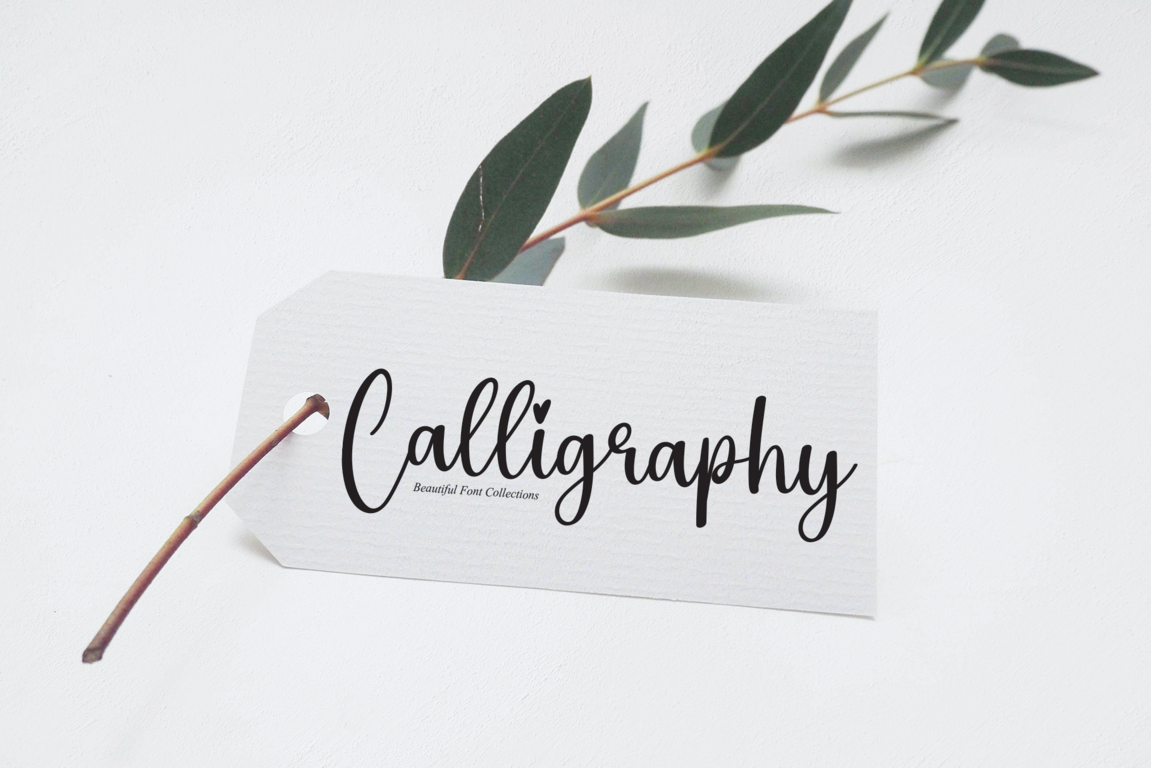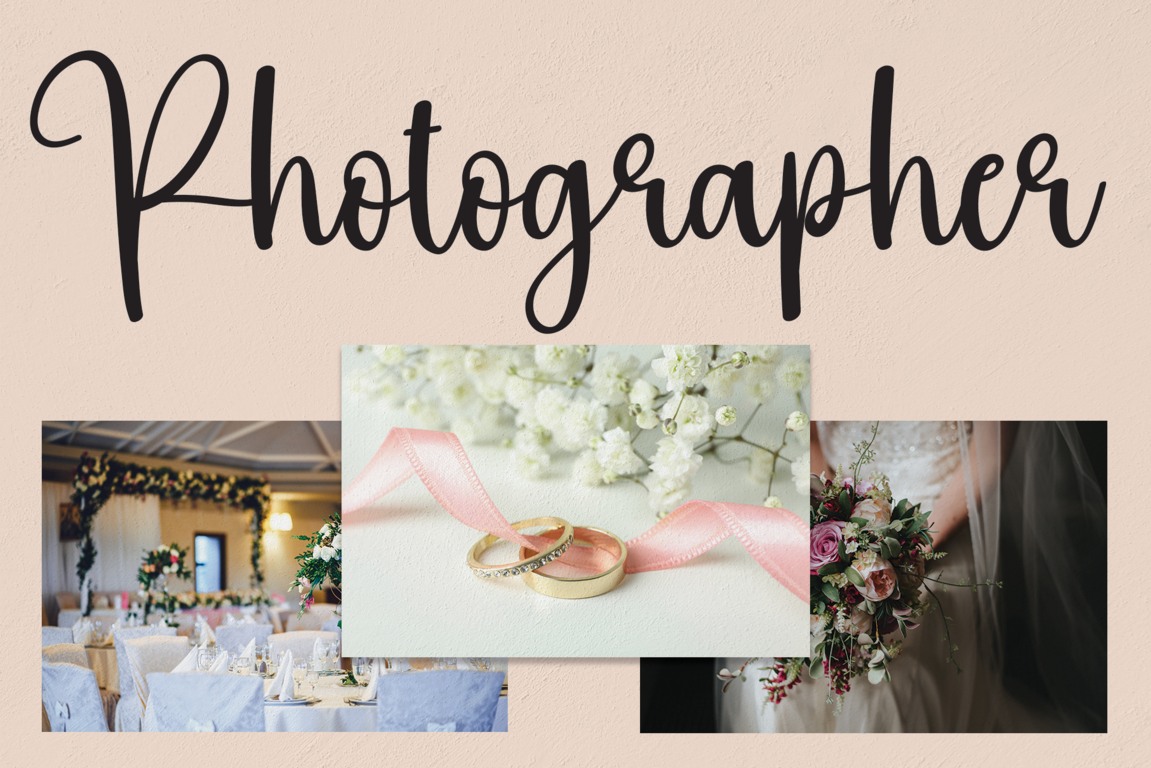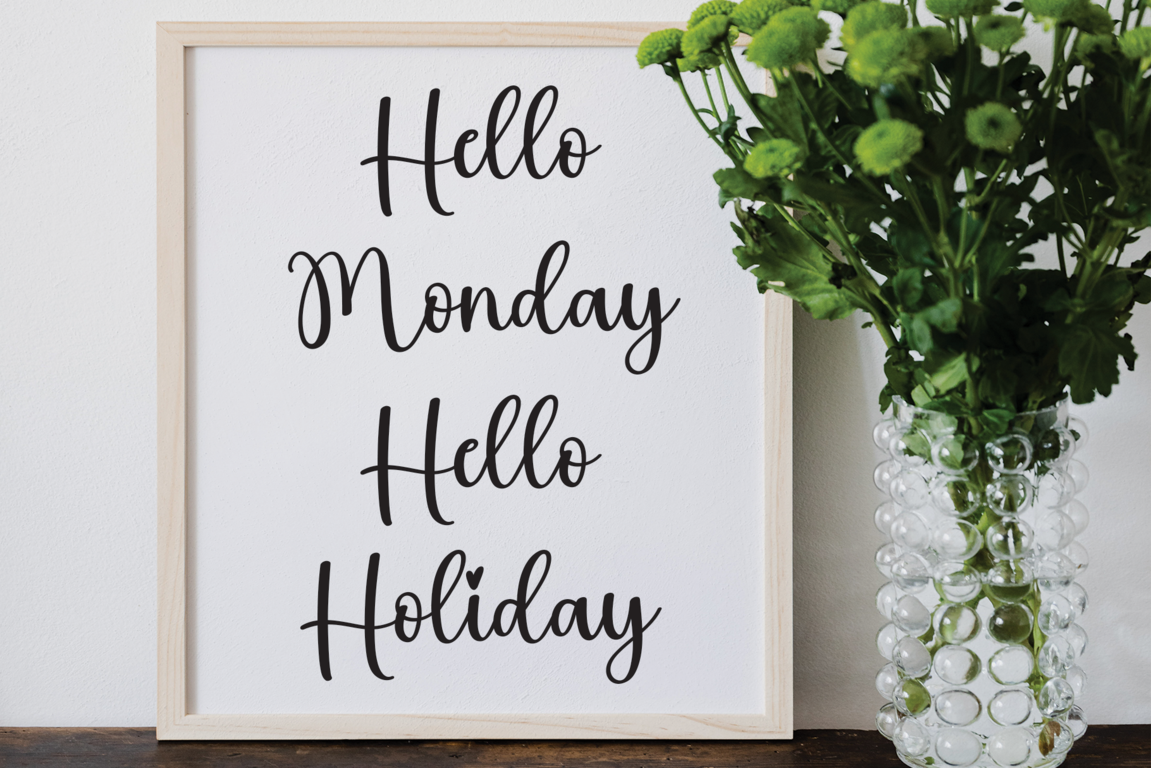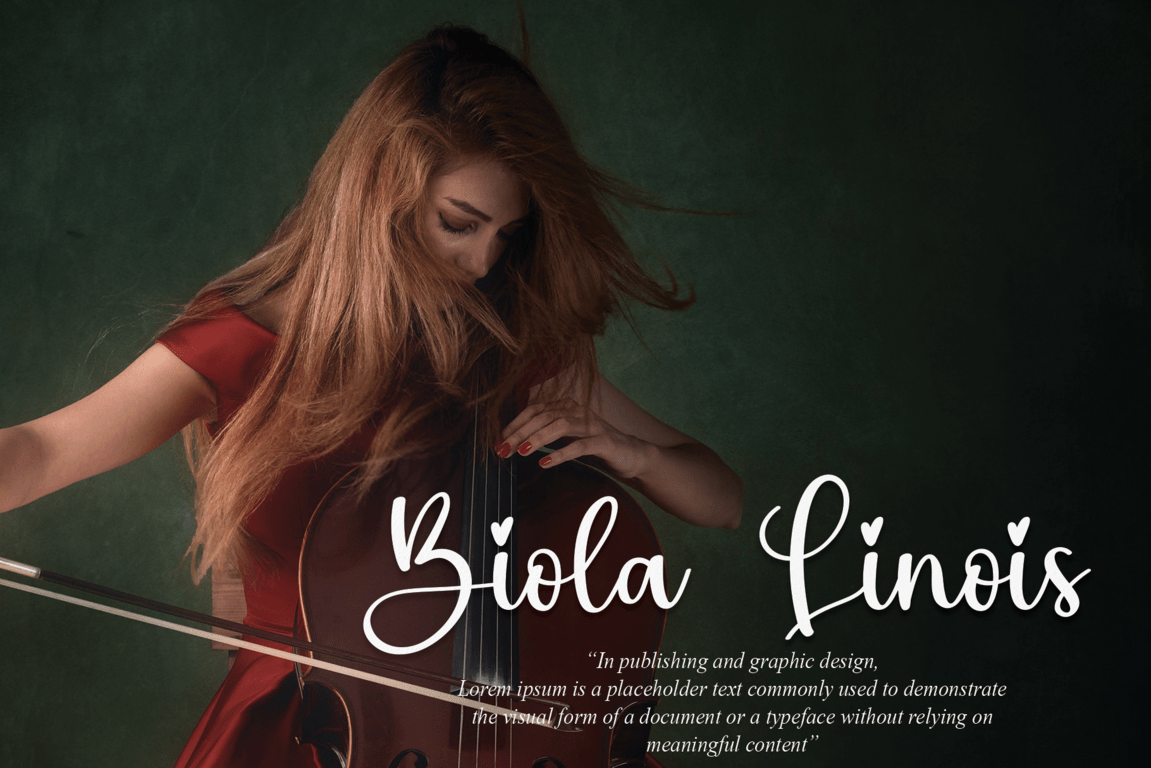
Biscuit Font
Biscuit Script Font is a delicate, elegant and flowing handwritten font. It has beautiful and well balanced characters and as a result, it matches a wide pool of designs. Add it to your most creative ideas and notice how it makes them come alive!
the latest style letters are perfect for wall displays, wedding invitations, social media post logos, advertisements, product packaging, product designs, labels, photography, watermarks, invitations, stationery, and any project that requires taste handwriting.